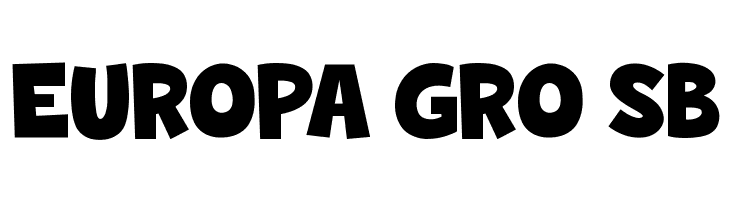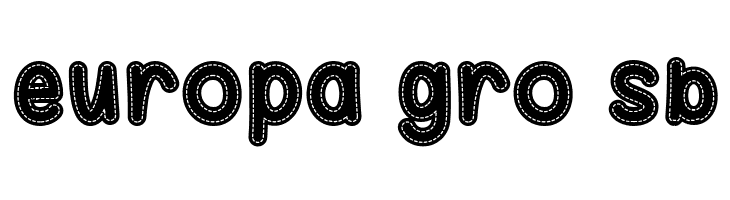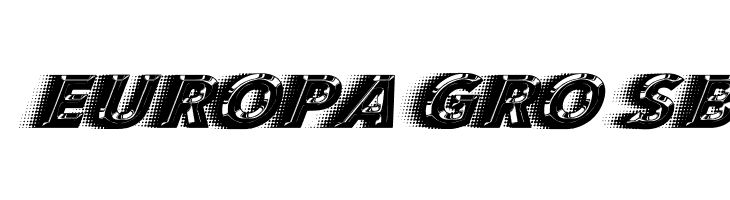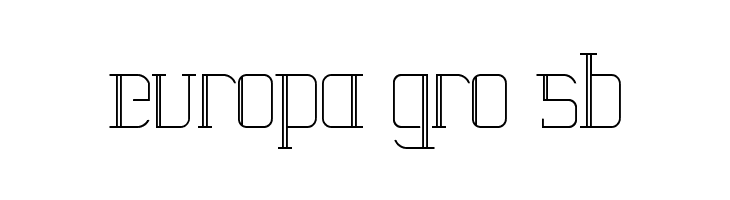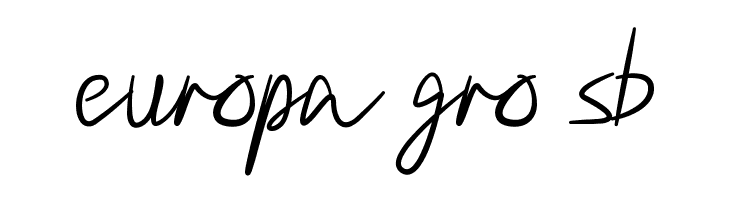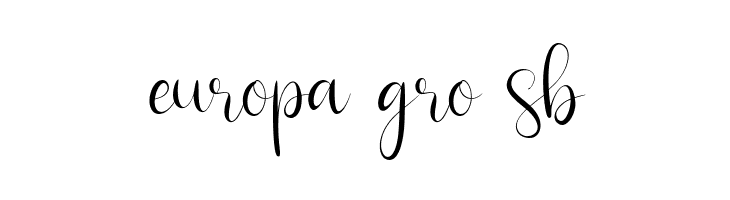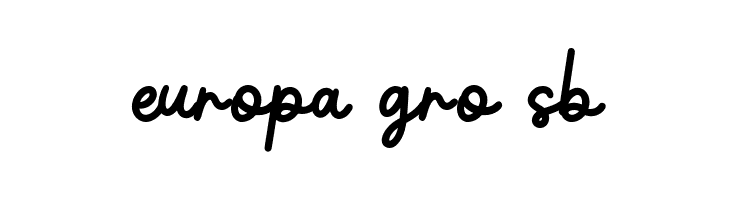
A bold, playful font with a cartoonish style and consistent stroke weight.
A playful, bold font with a stitched outline effect, ideal for creative projects.
A playful, heart-embellished cursive font perfect for creative projects.
A bold, retro-style font with a halftone pattern and dynamic slant.
A modern, geometric font with thin lines and tight spacing.
A dynamic, cursive script font with a natural, handwritten style.
An elegant, flowing script font with ornate, cursive letterforms and italic styling.
A flowing, elegant script font with high contrast and graceful curves.
A playful and flowing script font with smooth, connected strokes and rounded forms.
An ornate, floral-decorated font ideal for elegant and sophisticated designs.